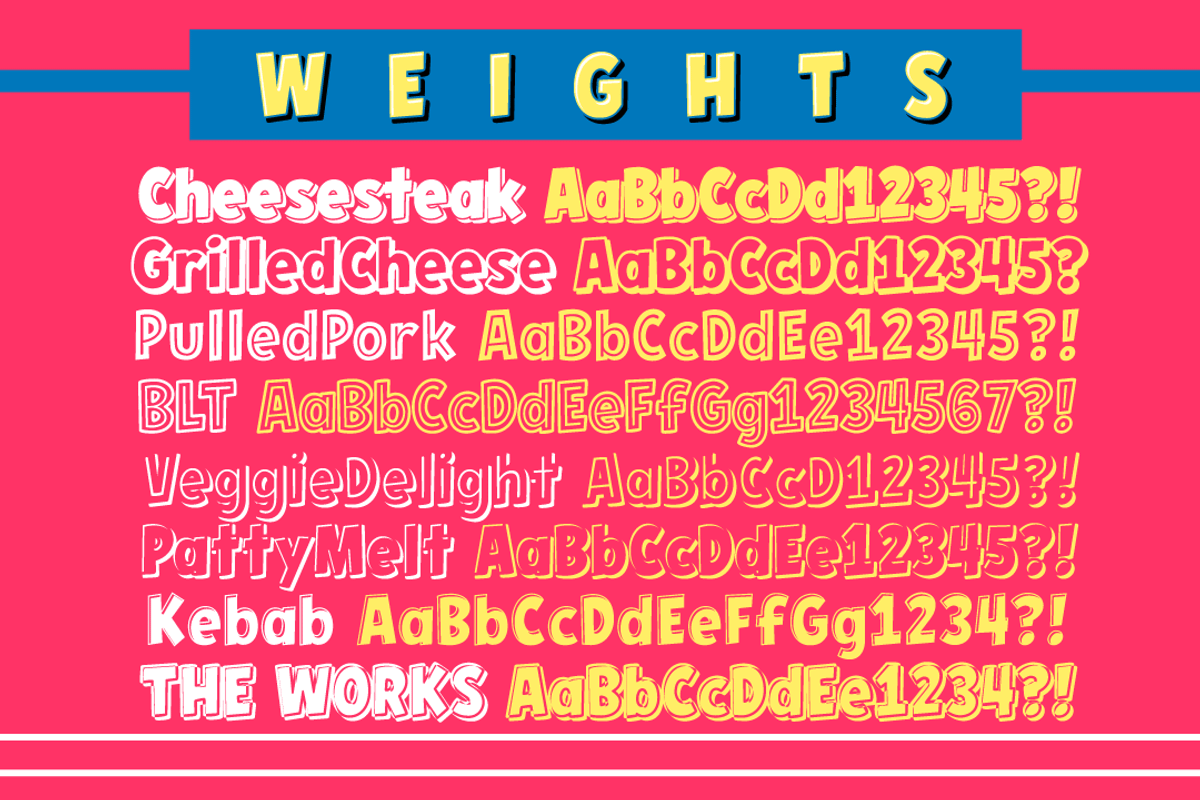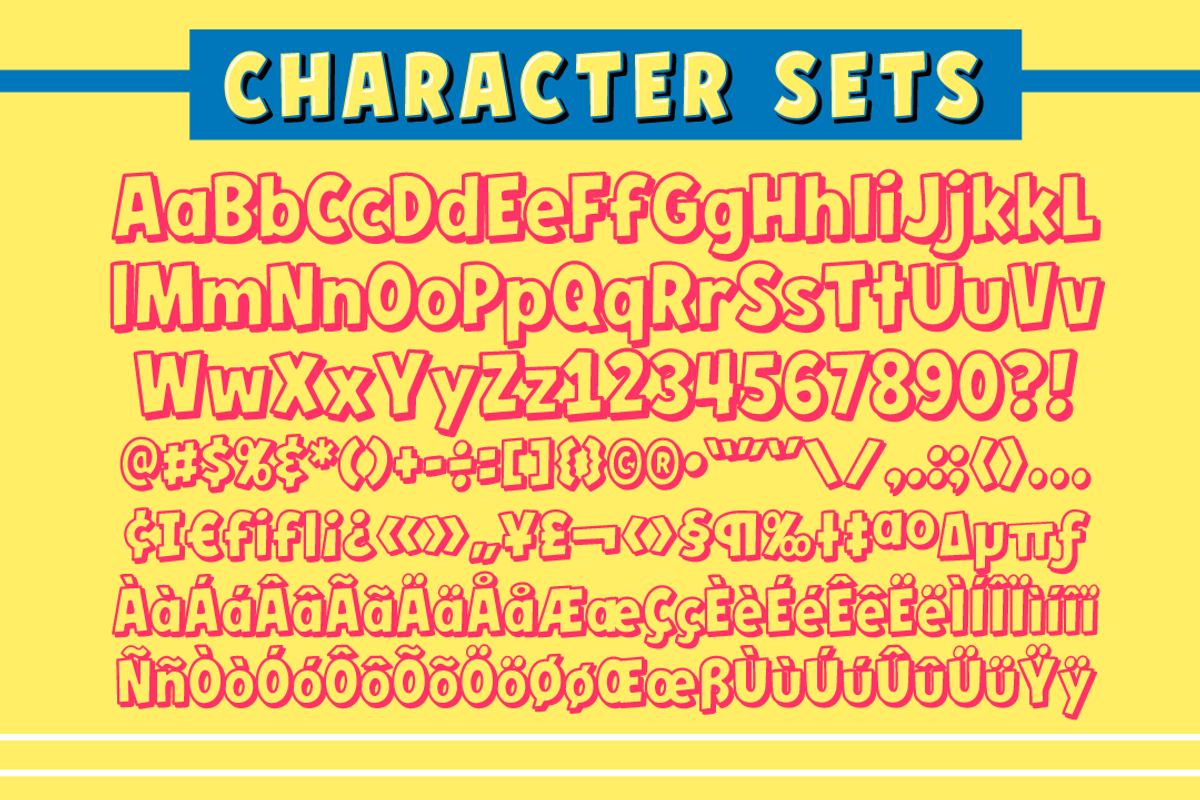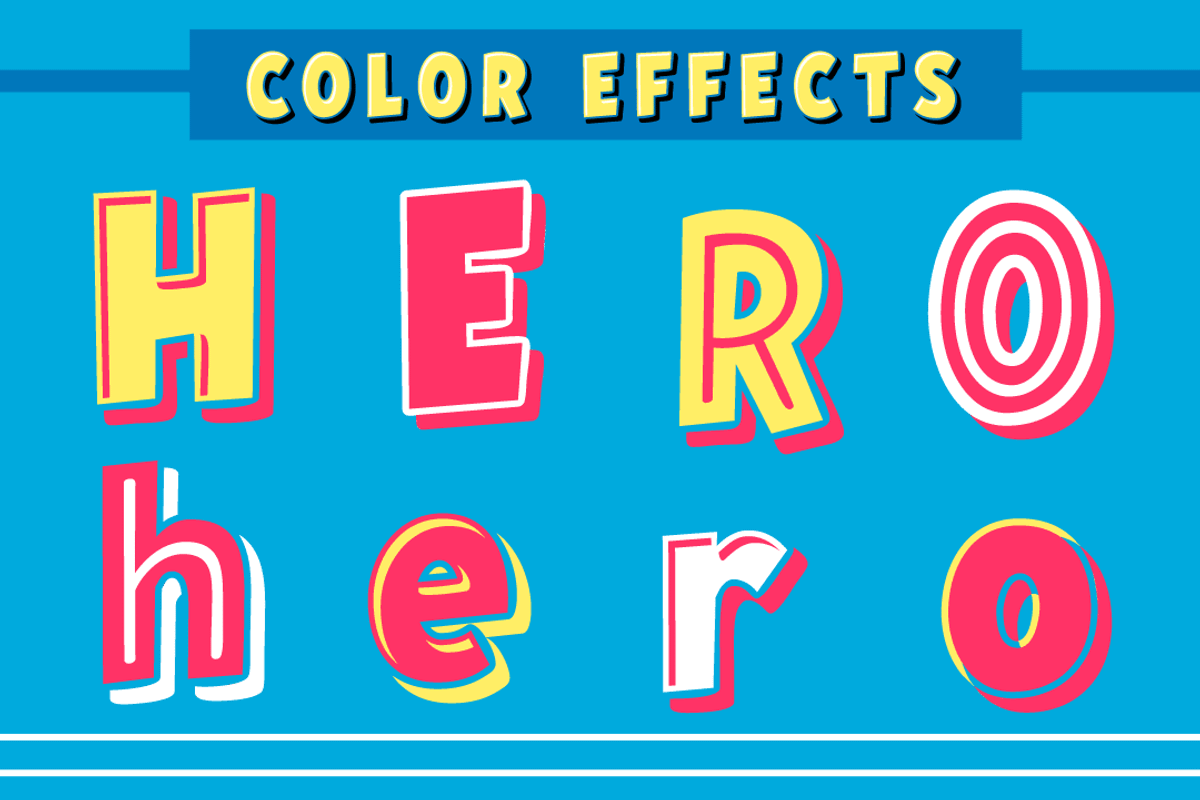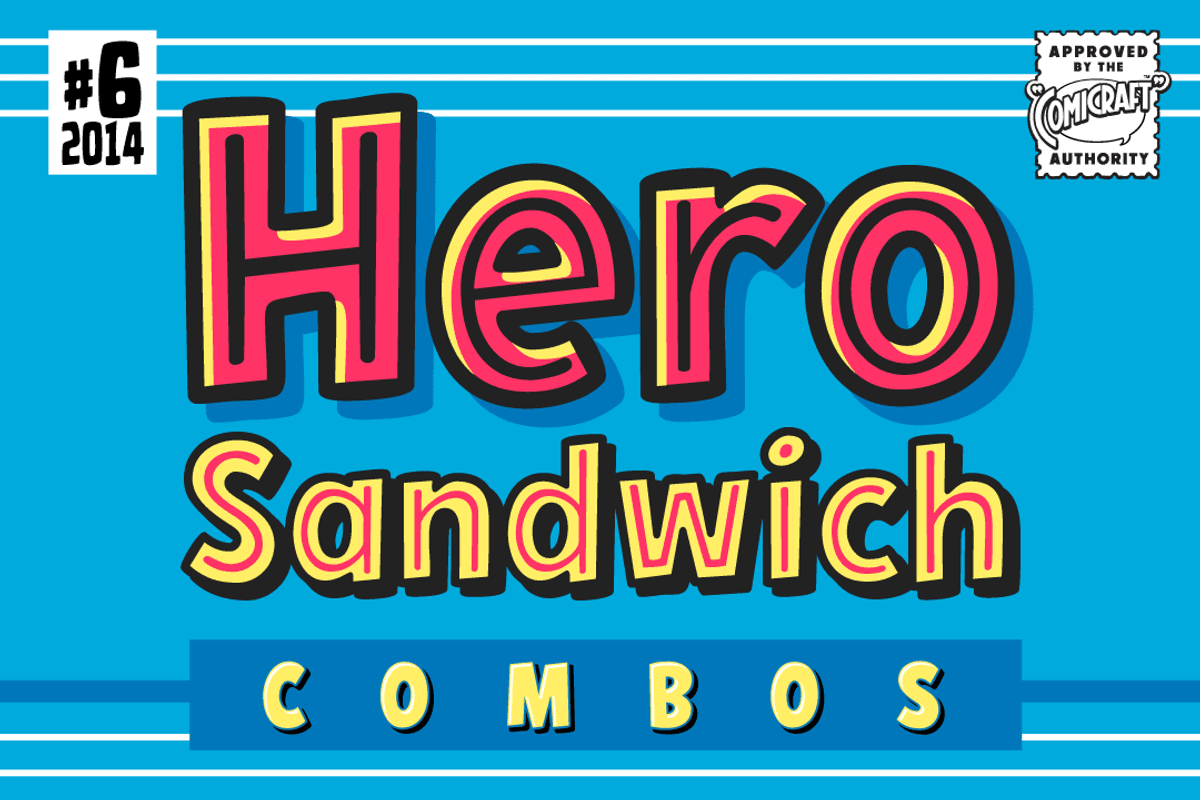
Hero Sandwich Combos
Hero Sandwich Combos by Comicraft Fonts is a font selected for branding, posters, packaging, typography.
Hero Sandwich Combos by Comicraft Fonts fits naturally into Branding, posters, packaging, typography.